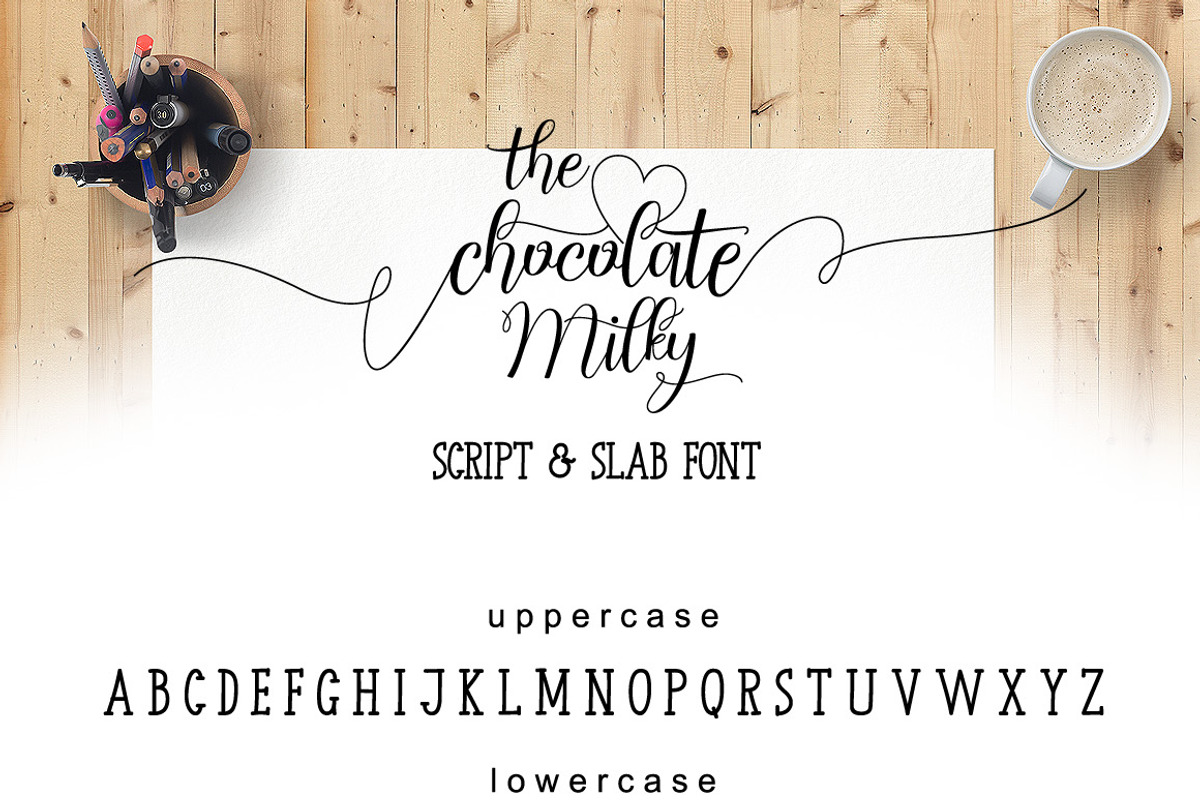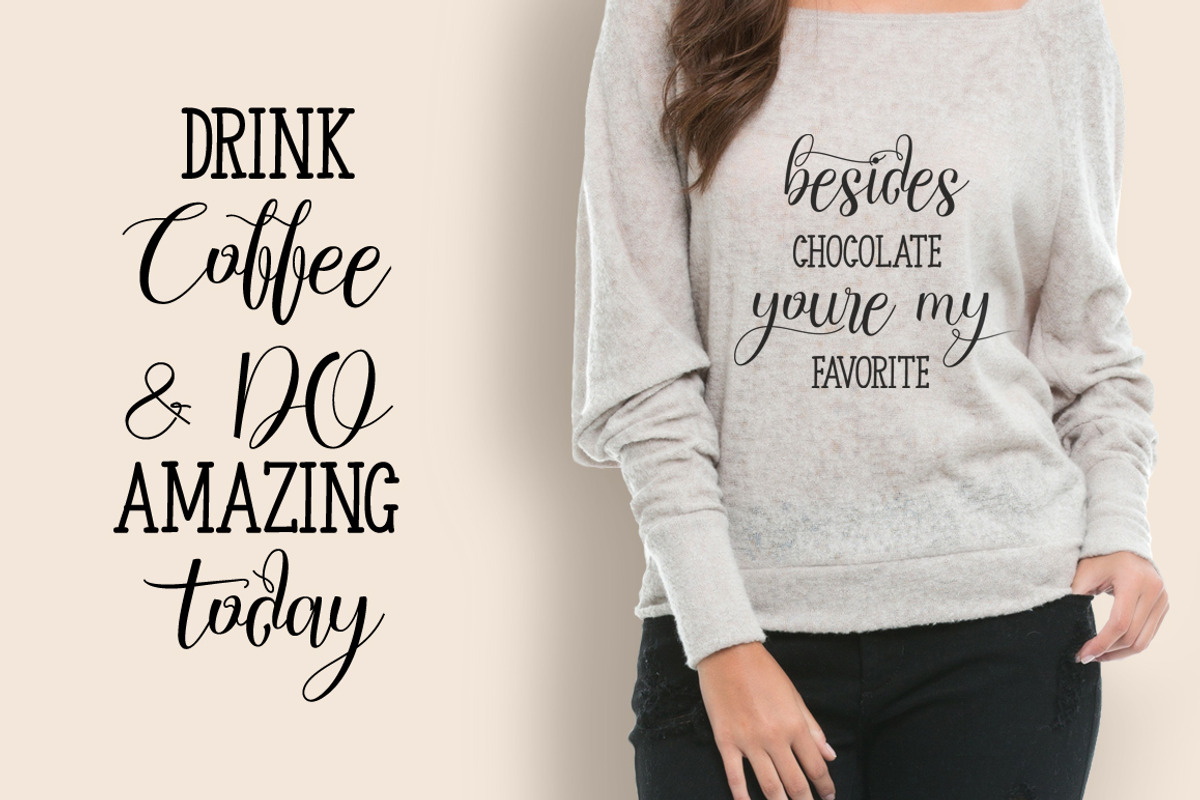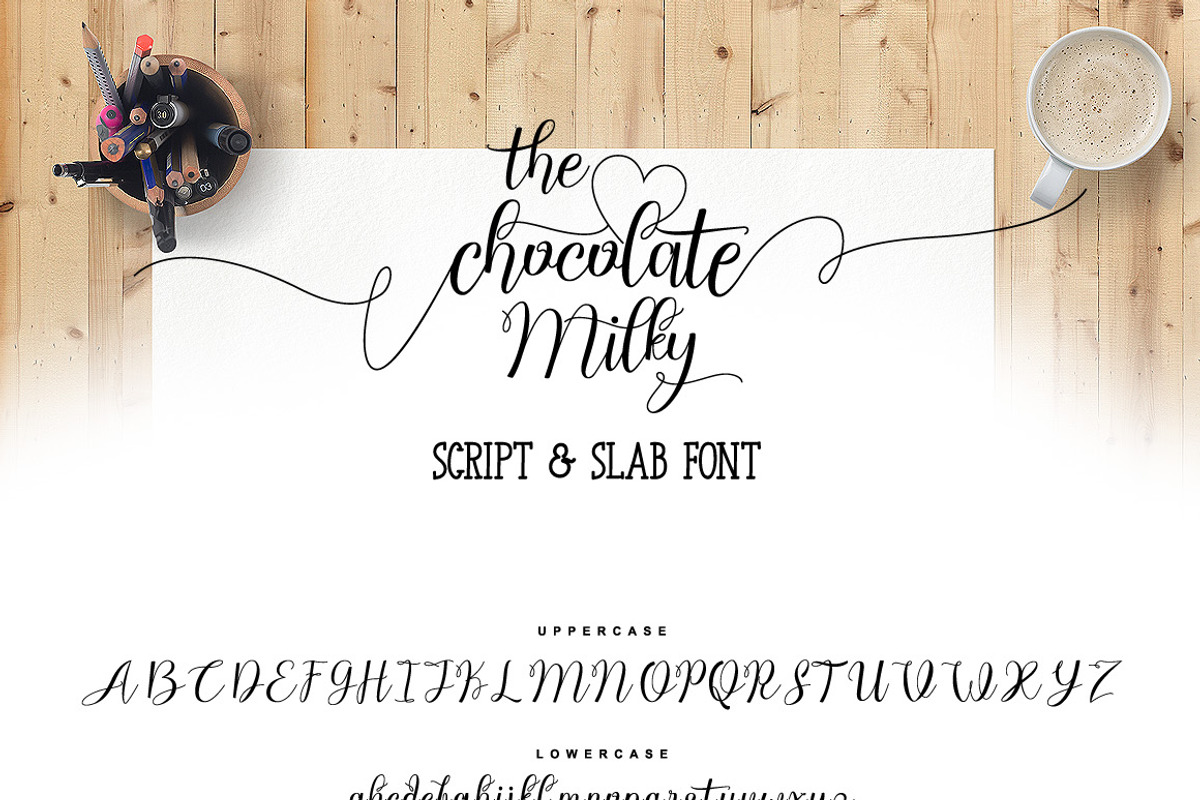
Chocolate Milky (Script And Slab)
Chocolate Milky Font
Chocolate Milky is a modern calligraphy script style, with many extras ligature and alternates glyphs. Suitable for design, element design, wedding, event, t-shirt, logo, badges, sticker, and awesome work, etc...
Open Type Features Fonts
Combination alternative ligature fonts
Standard Ligatures, Stylistic Set, Multilanguage Characters, etc
Modern Calligraphy Script Style
Multilanguage Support
Unique style fonts